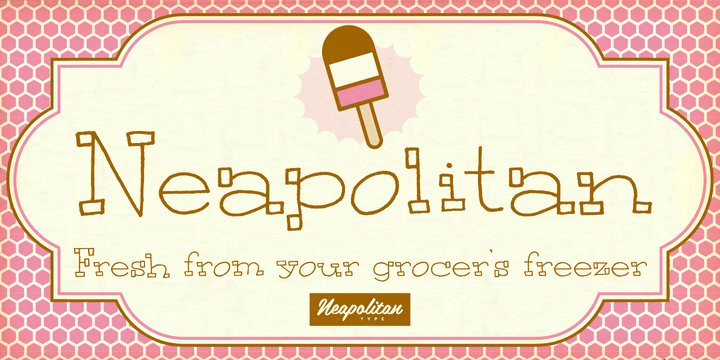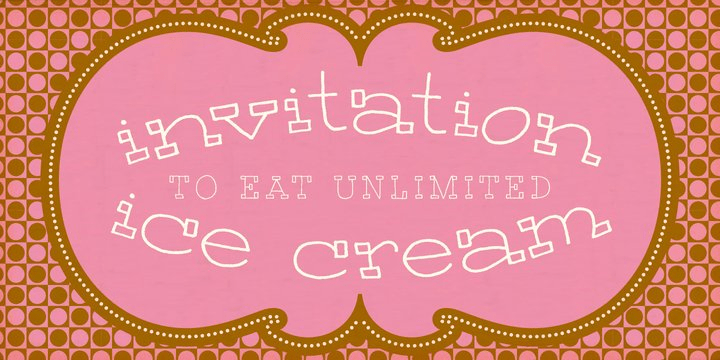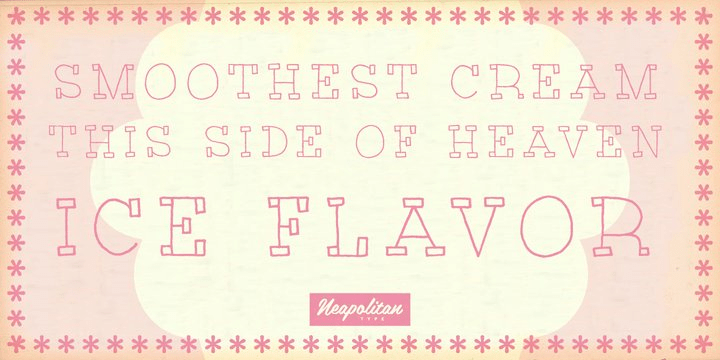
Neapolitan
Font Family by Neapolitan
Plain vanilla... Boring old chocolate... Why settle for the same, lame tastes when you can order up a typographic treat? Try Neapolitan, the fun-filled font with flavor to spare. Look for it in your grocer's freezer (You won't really find it there but you could have fun messing with your grocer!) or get it delivered right to your home in the dandy dessert download!